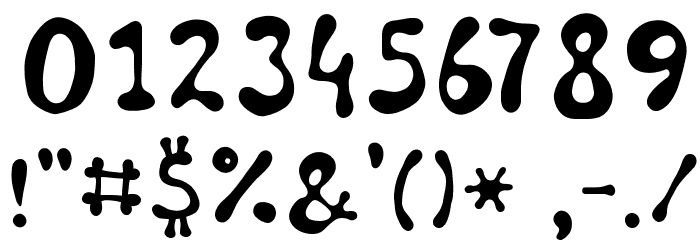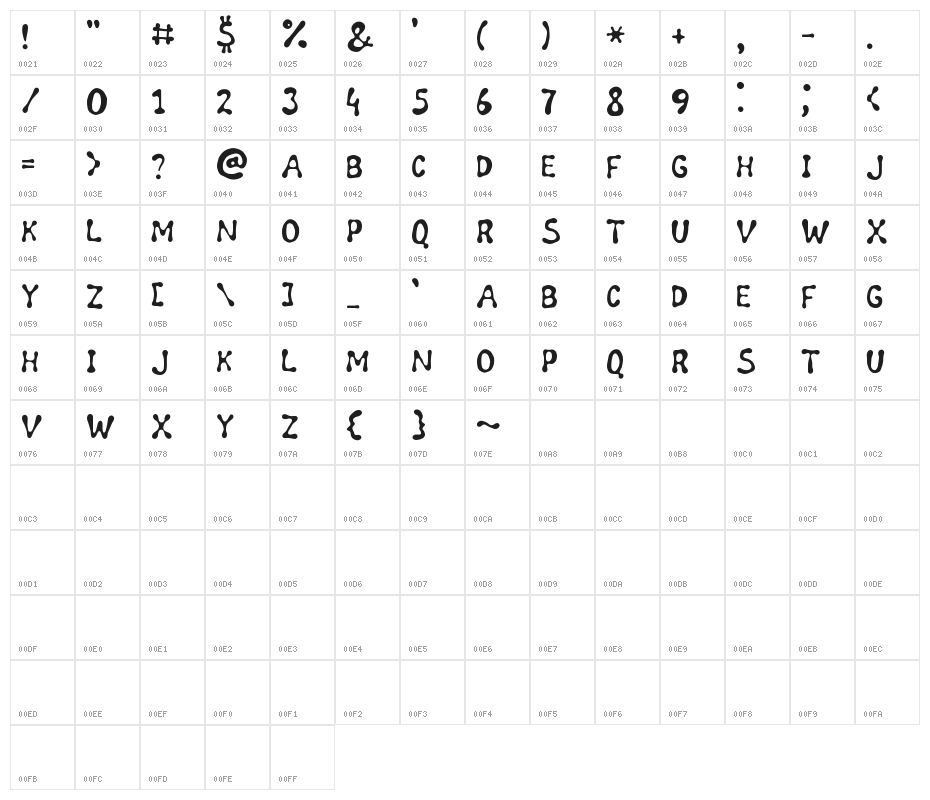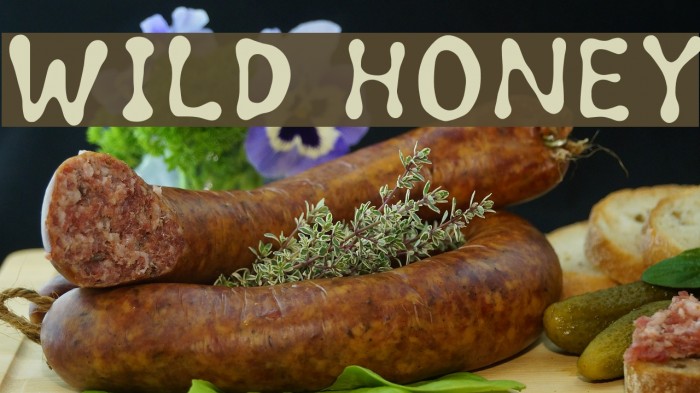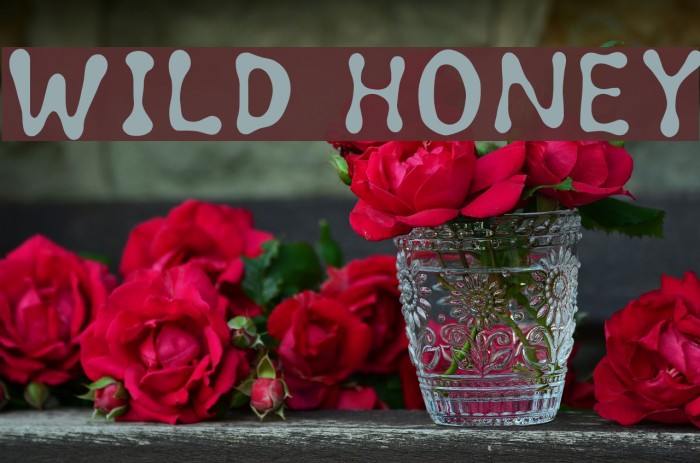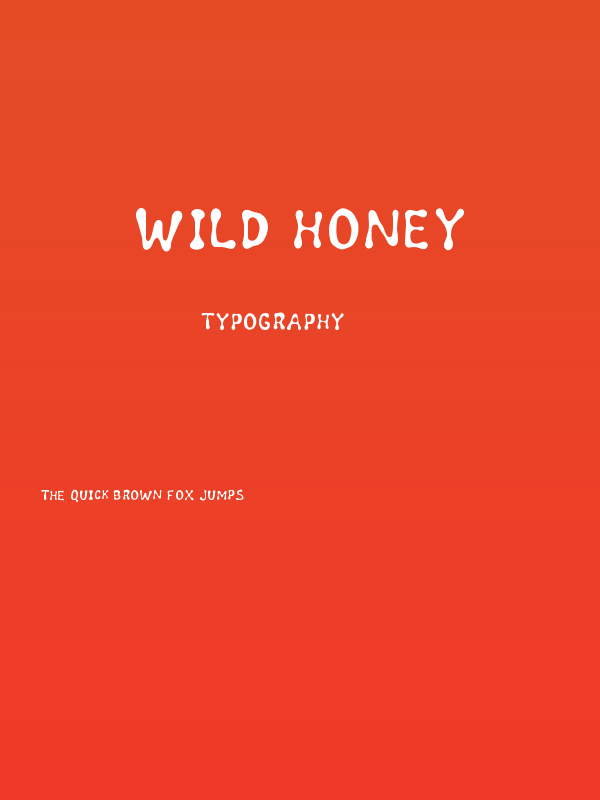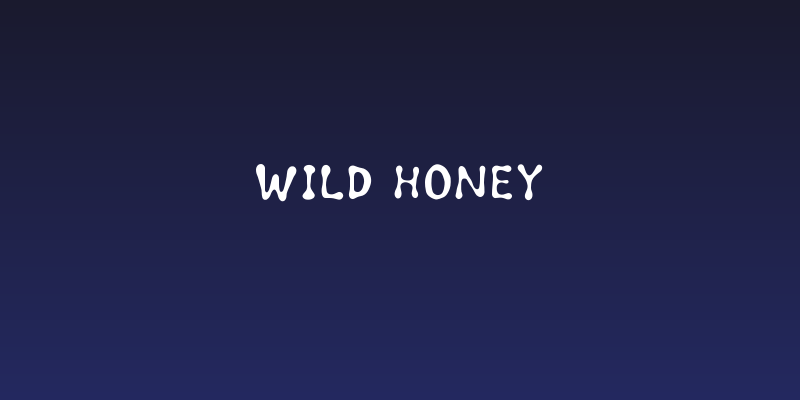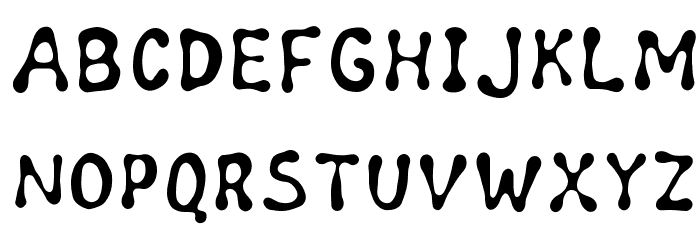
Wild honey Font
Wild honey Description
This playful and whimsical font features a hand-drawn aesthetic with rounded, irregular edges that give it a lively and organic feel. The characters are bold and slightly uneven, adding a touch of charm and personality. The uppercase and lowercase letters maintain a consistent style, while the numerals and special characters complement the overall design with their quirky shapes. This font exudes a sense of fun and creativity, making it ideal for projects that require a lighthearted and informal touch.